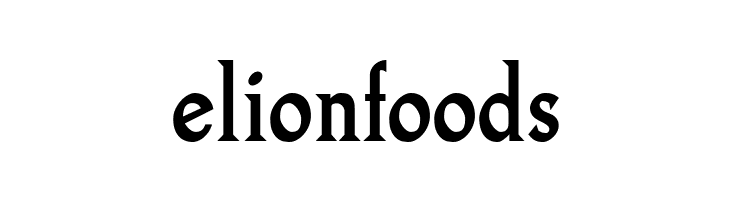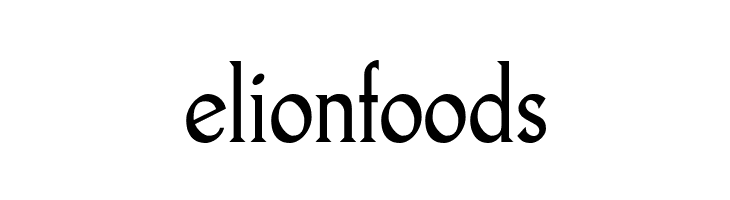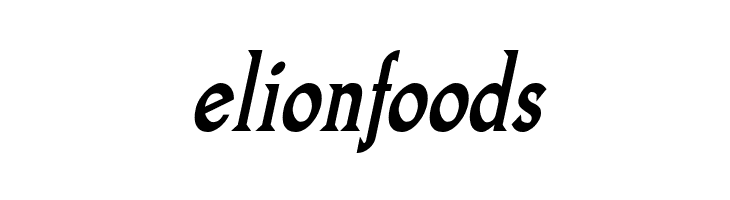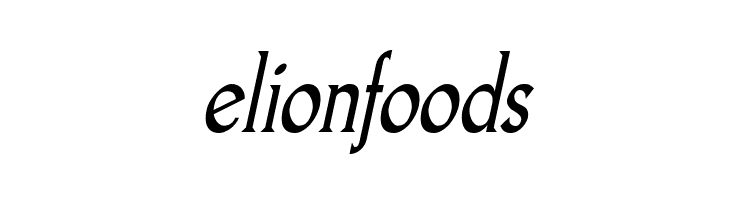
A bold serif font with high contrast and classic elegance.
A classic serif font with elegant, sharp serifs and a sophisticated appearance.
A bold, italicized font with dynamic and modern letterforms.
An elegant serif font with an italic slant and moderate stroke contrast.